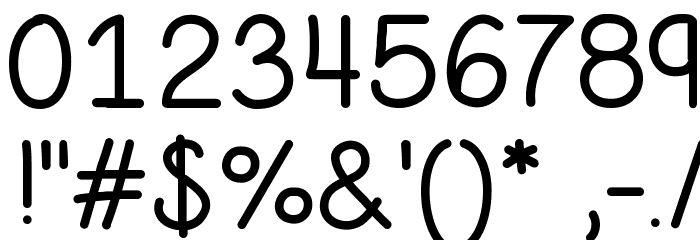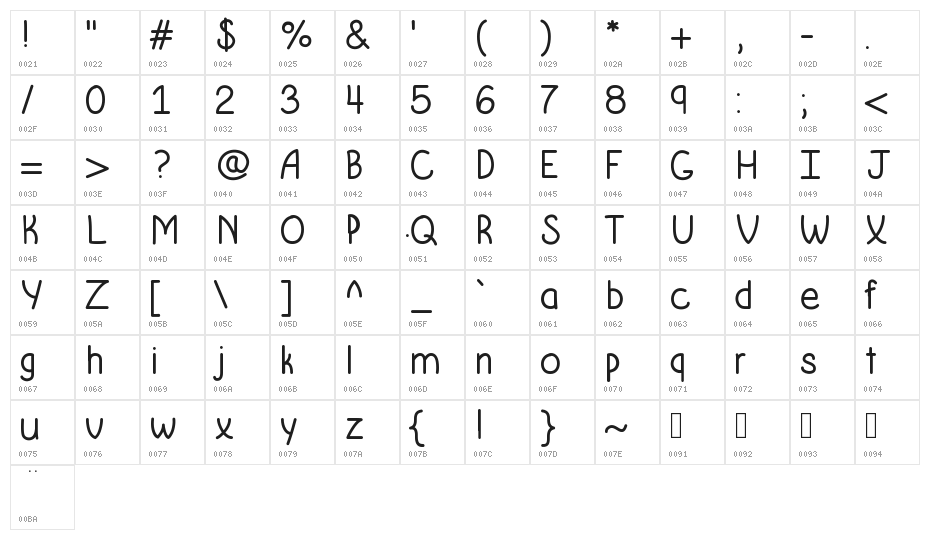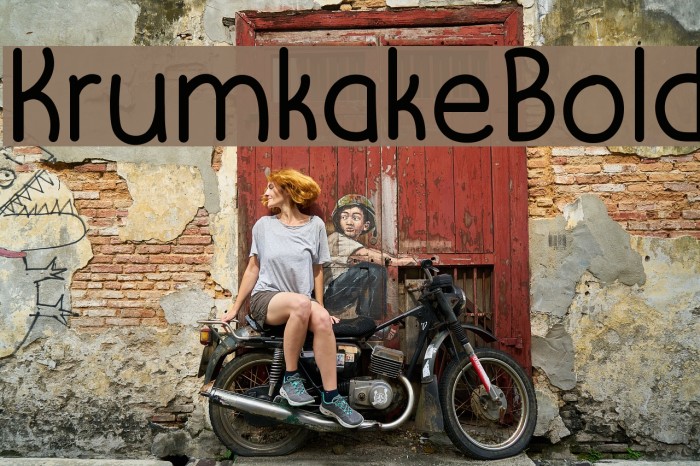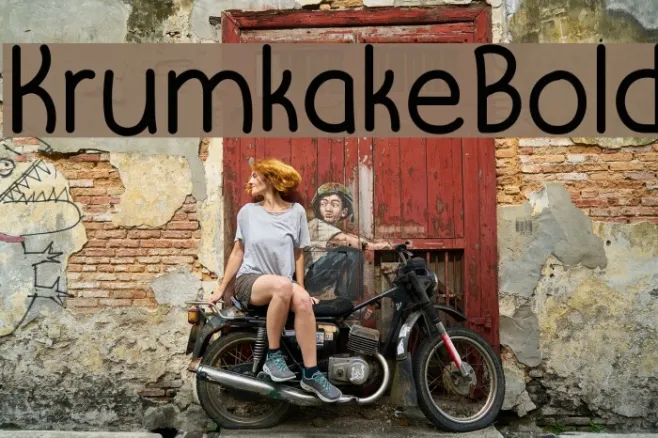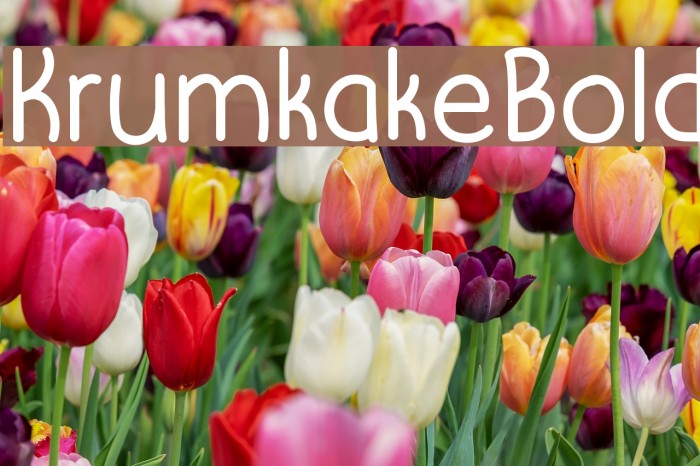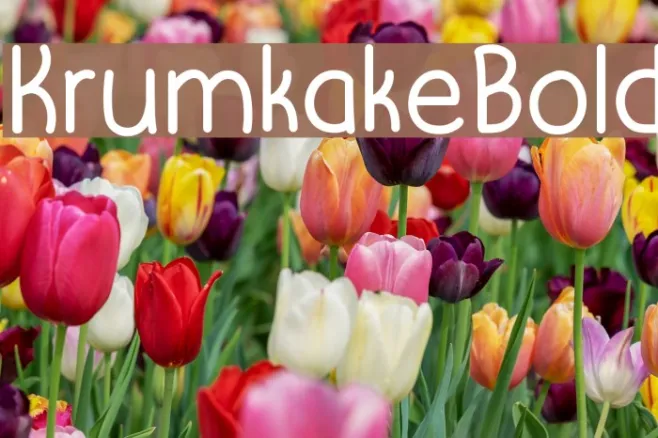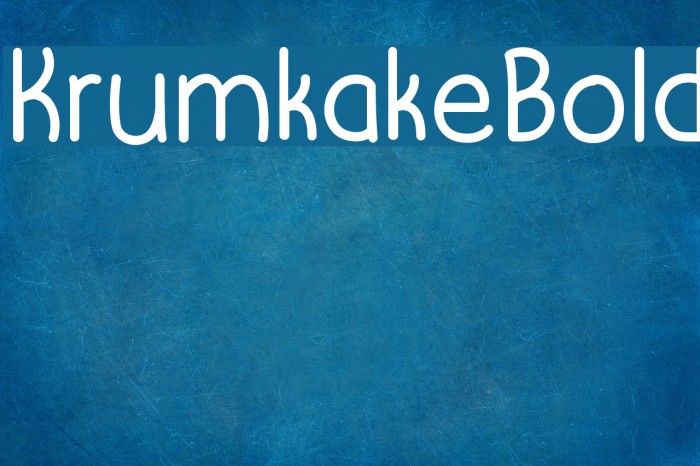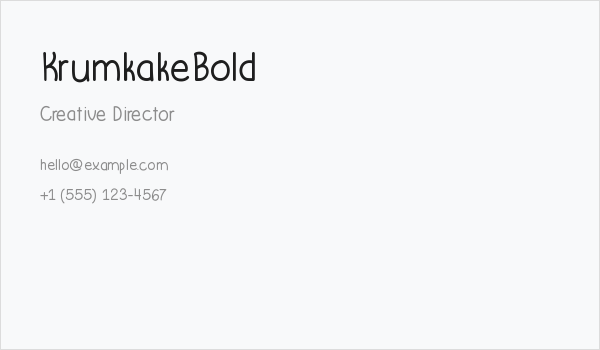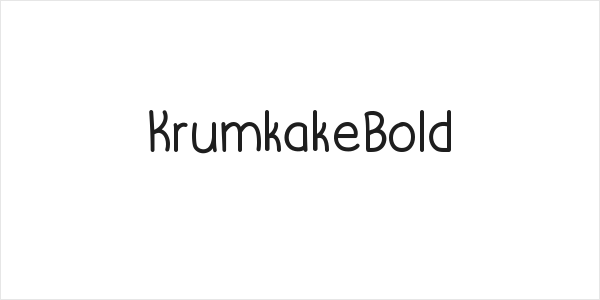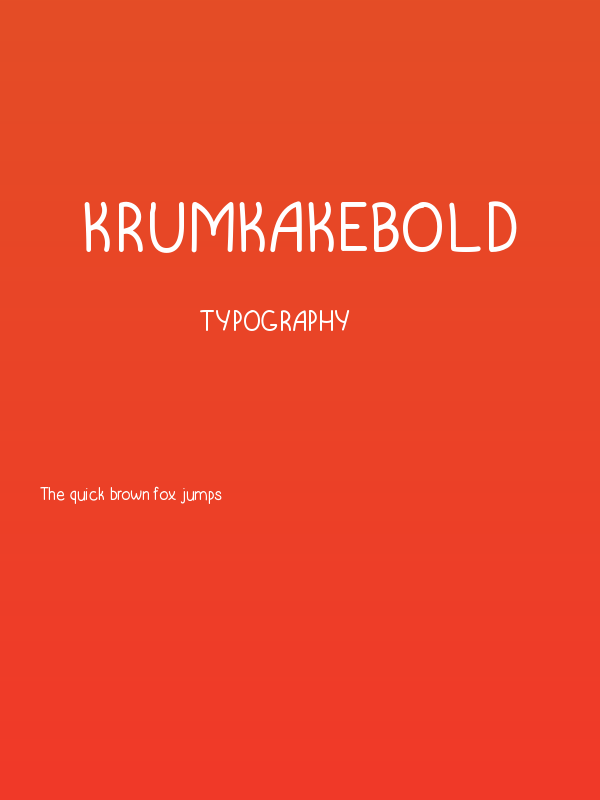
KrumkakeBold Font
KrumkakeBold Description
This font features a playful and rounded style, characterized by its smooth curves and friendly appearance. The letters are evenly spaced with a consistent stroke width, giving it a clean and approachable look. The uppercase and lowercase letters maintain a uniform height, contributing to its balanced and harmonious design. The numerals and special characters are crafted with the same rounded aesthetic, ensuring cohesion across all elements. This font's simplicity and warmth make it versatile for various design applications.
| Proposed Projects | Ideal for children's books, playful branding, casual invitations, and educational materials. |